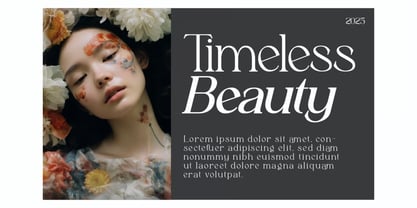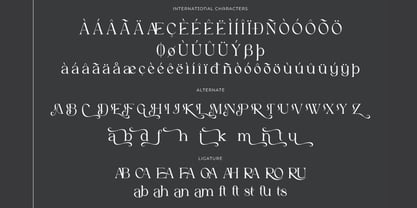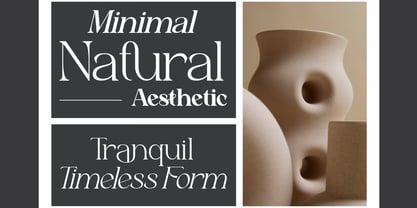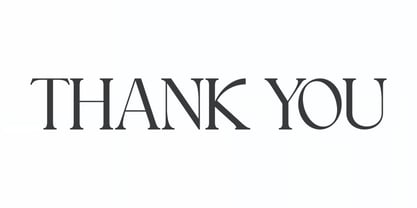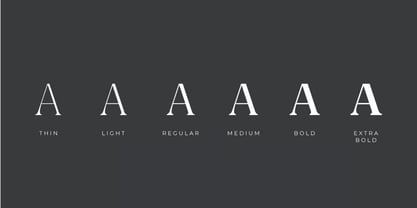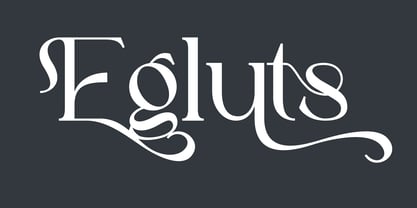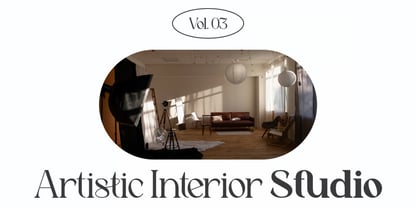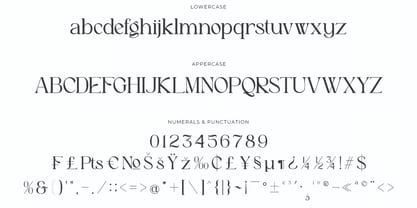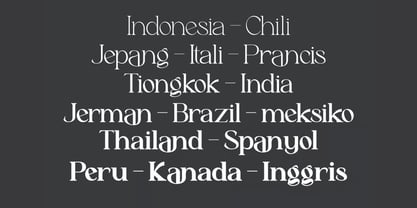
Egluts
von Hasnat Studio
Die Schriftfamilie Egluts wurde von Hasnat Khan entworfen und von Hasnat Studio veröffentlicht. Egluts enthält 1 Stile. Mehr über diese Familie
Egluts is a premium elegant serif typeface designed for creators seeking a refined, distinctive, and upscale aesthetic. With graceful strokes, polished serif details, and a modern-classic balance, Egluts enhances any project that demands sophistication and visual impact. Ideal for branding, editorial work, packaging, and digital media, this typeface infuses timeless elegance into every design. Crafted with precision, Egluts features stylish ligatures, alternates, and multilingual support, making it versatile, expressive, and beautifully adaptable to a wide range of creative needs. ✿ Key Features: - **Elegant Serif Letterforms**: Designed with refined curves and premium detailing. - **Alternates & Ligatures**: Add stylistic variety and creative flexibility. - **PUA Encoded Characters**: Access all glyphs without special software. - **Multilingual Support**: Includes 65 languages, such as Afrikaans, Albanian, Catalan, Danish, Dutch, English, Filipino, French, German, Indonesian, Irish, Italian, Norwegian, Portuguese, Spanish, Swedish, Zulu, and many more. - **Seamless Compatibility**: Works in Adobe Illustrator, Photoshop, InDesign, and Microsoft Word. - **Easy Installation**: Simple setup for both PC & Mac. ✿ Perfect For: - Branding & Luxury Logo Design - Editorial Layouts & Magazine Headlines - Product Packaging & Labels - Wedding Invitations & Stationery - Web Design & Social Media Graphics - Marketing & Promotional Materials. Elevate your creative projects with Egluts — an elegant serif typeface crafted to deliver a premium, timeless, and beautifully polished design experience.
Designer: Hasnat Khan
Aktuelle Foundry: Hasnat Studio